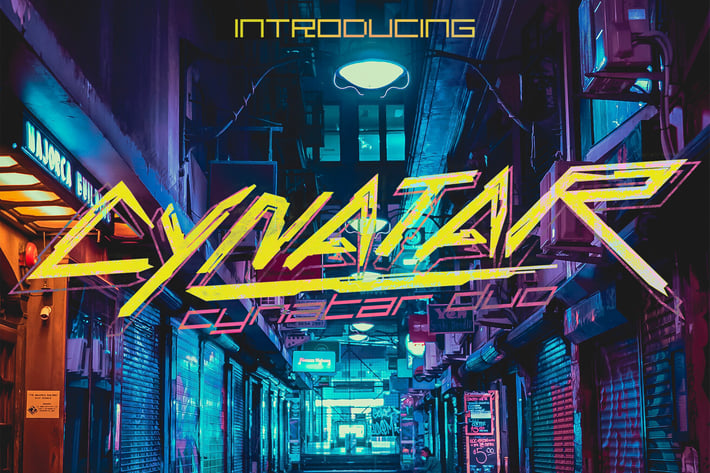
Cynatar Font Duo
Cynatar Font is a sci-fi cyber font inspired by futuristic styles.
Great for movies posters, games, and all other design types
Also, the combination and usage of different letters and ligatures gives you the opportunity to have fun and at the same time create your own unique style.
Ideal for loud messages. Made with flat marker adding realistic moves in it. Very interesting to use for logos, name tags, handwritten quotes, product packaging, merchandise, social media & greeting cards. Also, ideal to make t-shirts designs and other clothing products.